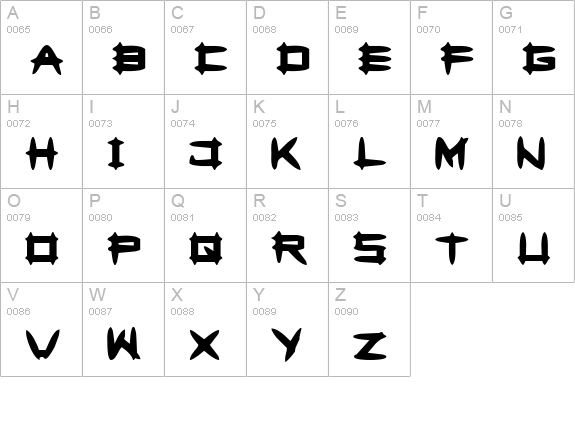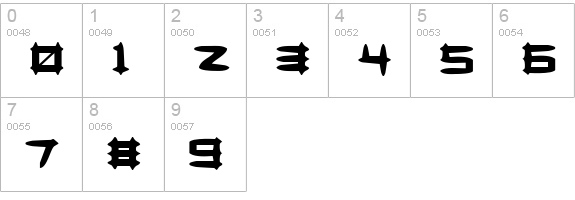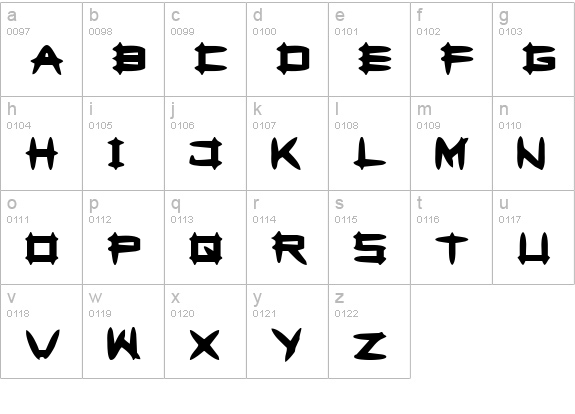
Greghor II Font Details
Introducing Greghor II font, a versatile and modern typeface that effortlessly blends elegance with a touch of playfulness. This sophisticated font features clean lines and distinct characteristics that make it perfect for a variety of design projects, from branding to advertising to editorial work. With its sleek and stylish appearance, Greghor II font is sure to make a statement and leave a lasting impression on your audience. Whether you're creating a logo, poster, website, or any other design piece, this font will elevate your project to the next level. Best of all, Greghor II font is available for free download at FontsMarket.com. So you can add this stunning font to your collection without any cost, making it a valuable resource for designers and creatives alike. Don't miss out on the opportunity to enhance your designs with the beauty and sophistication of Greghor II font. Download it today and see the difference it can make in your work!